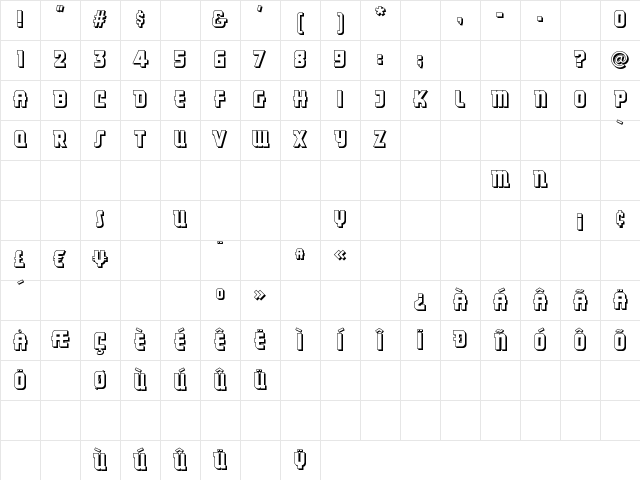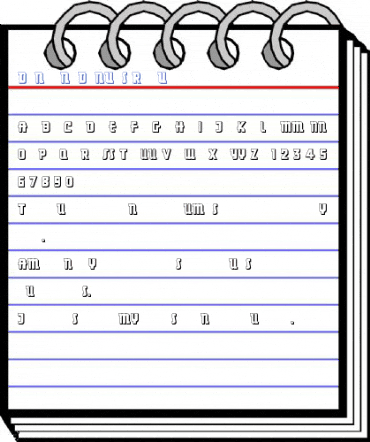
DancingDonuts Regular
Design Context for DancingDonuts
DancingDonuts is a composed and adaptable typeface that performs quietly and consistently across a wide range of design contexts.